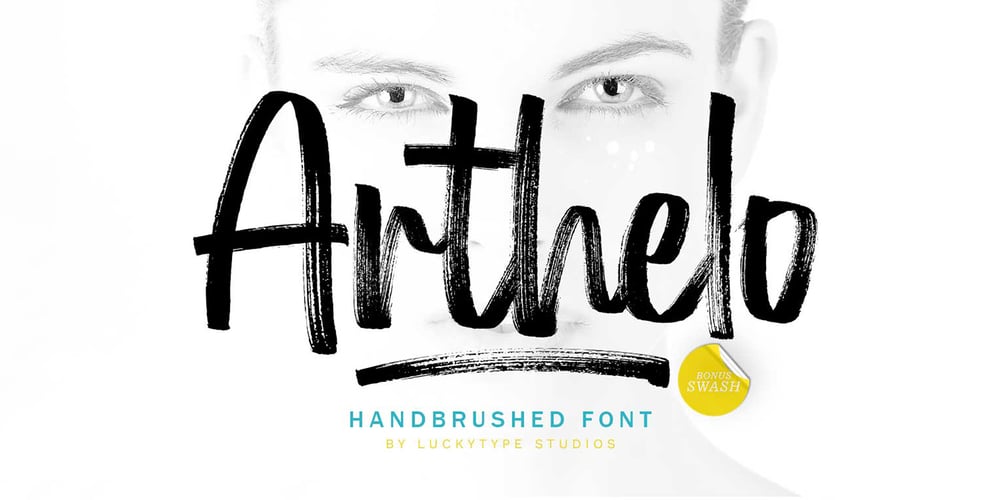
Arthelo Font Family was designed by Muhammad Fajar and published by Lucky Type. Arthelo contains 2 styles and family package options. Arthelo is a textured brush font with a bold style and contemporary design approach, naturally handcrafted, perfect for use in title designs such as clothing, invitations, book titles, stationery designs, quotes, branding, logos, greeting cards, t-shirts, packaging designs , posters, and more.Arthelo brush font Complete with uppercase and lowercase letters, and multi-language support, numbers, punctuation, and some perfect ligatures and comes with several lowercase alternatives that will make your designs more interesting.Thank you so much for looking and let me know if you have any questions.